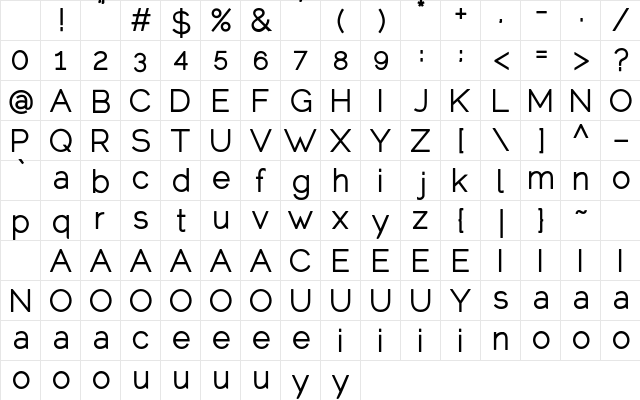
Complete Hai Eisya Free Version glyph index. Displaying only characters natively supported by Hai Eisya Free Version font.
Hai Eisya is a composed and adaptable typeface that performs quietly and consistently across a wide range of design contexts.
Pro Tip: Use Hai Eisya in both headline and body roles to test its range before committing to a single application.